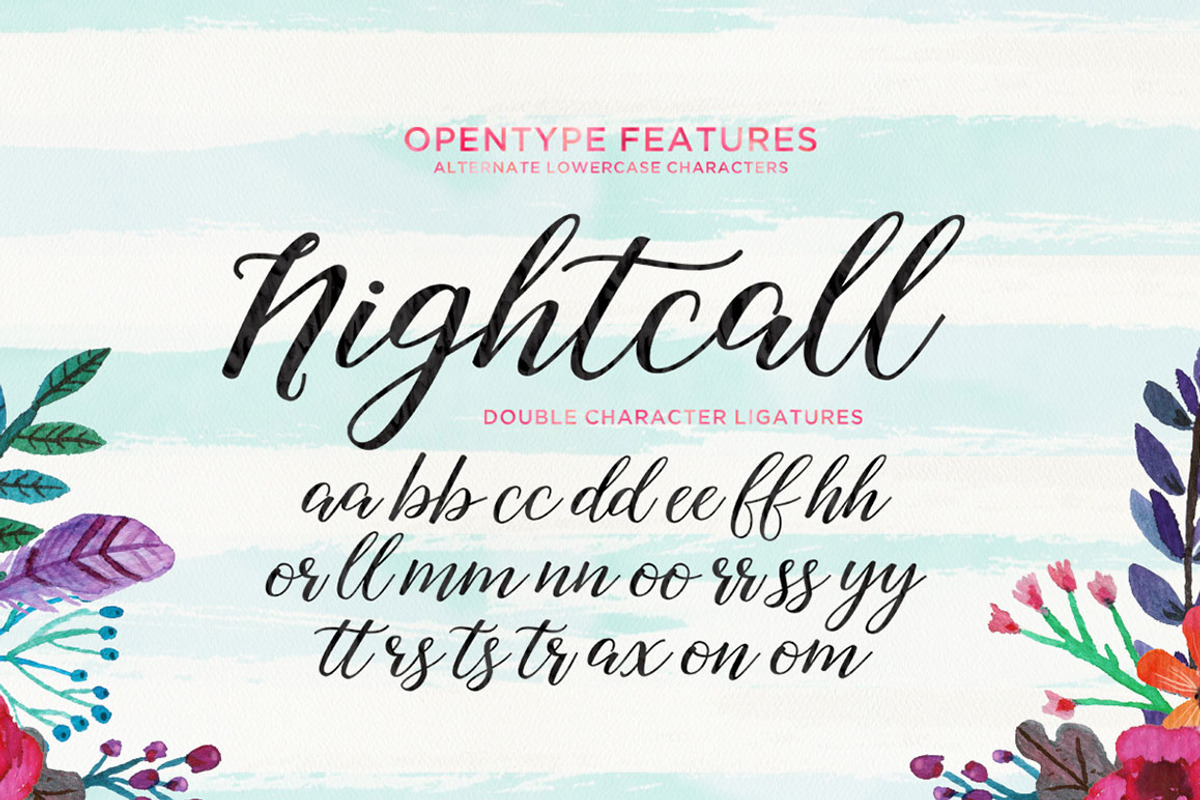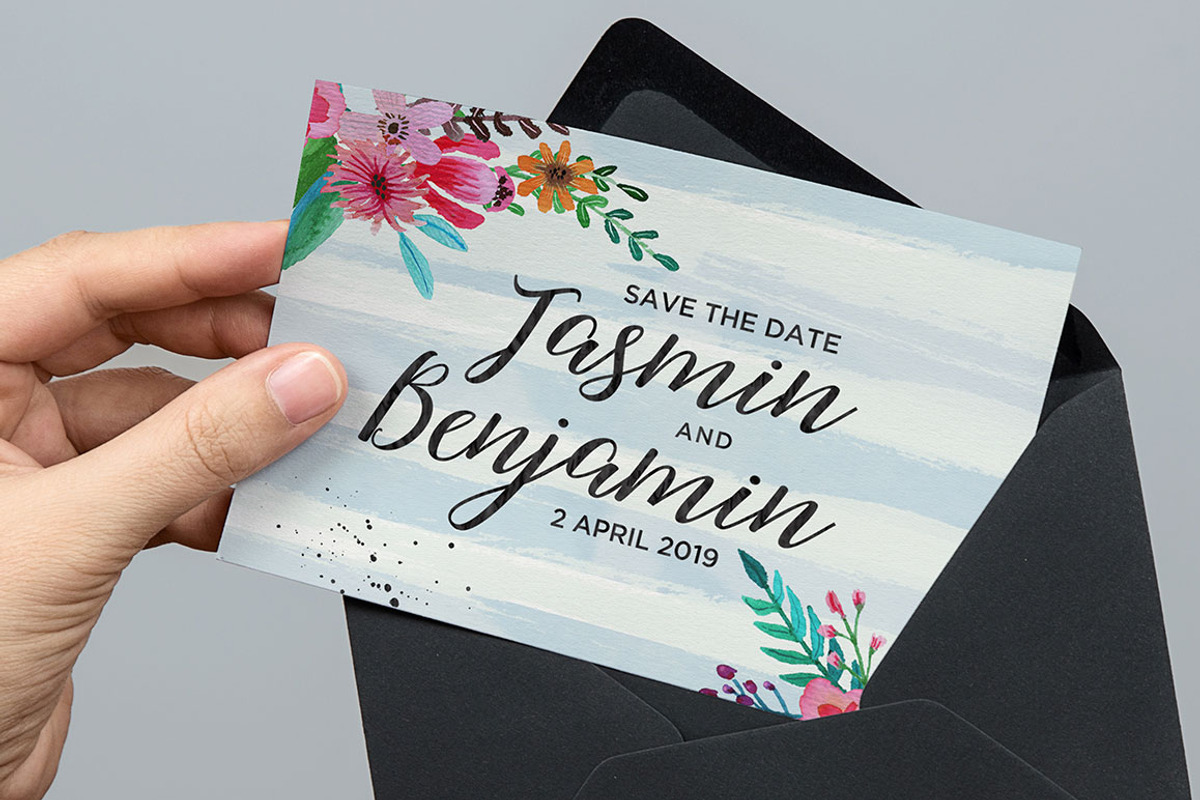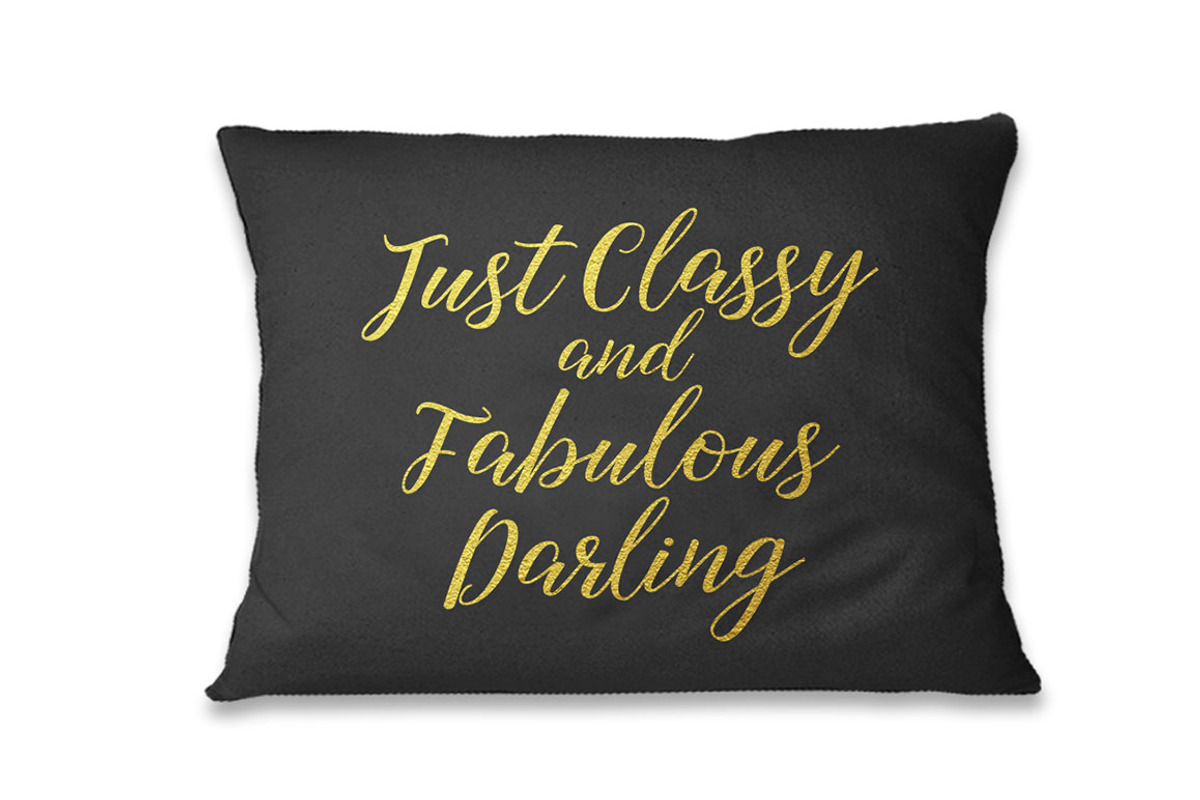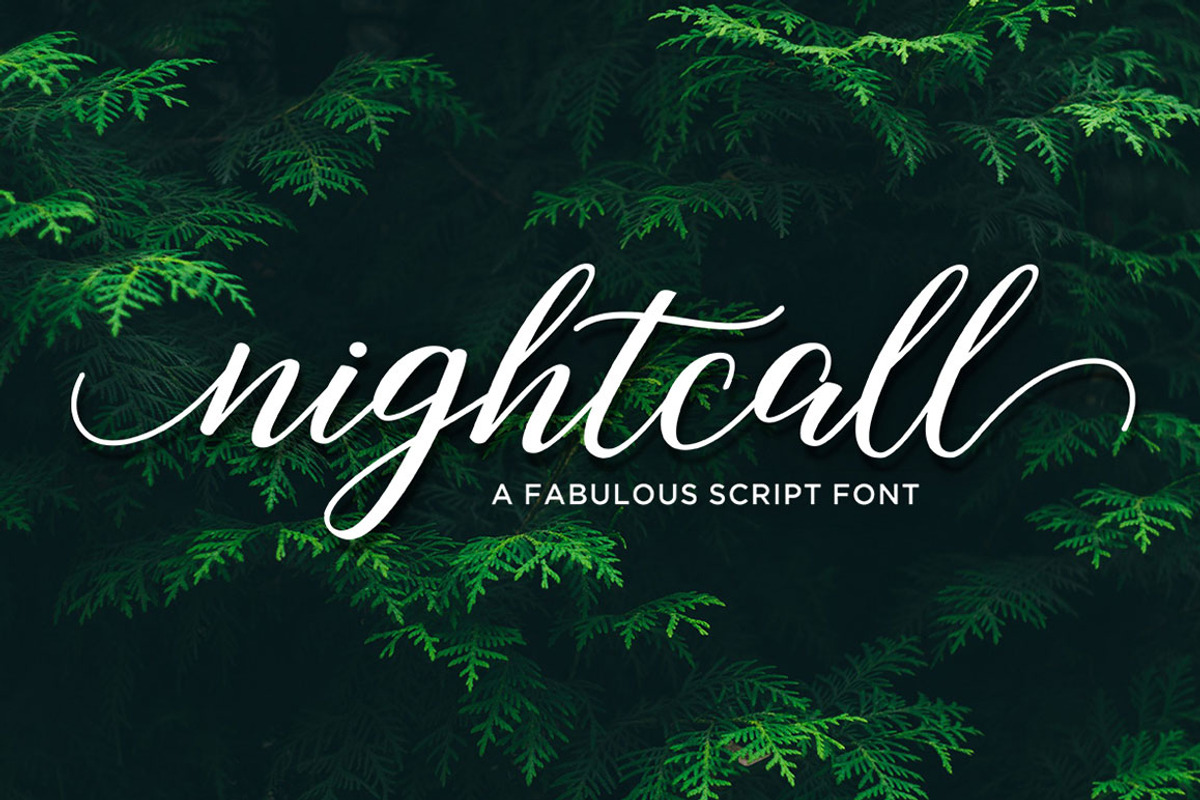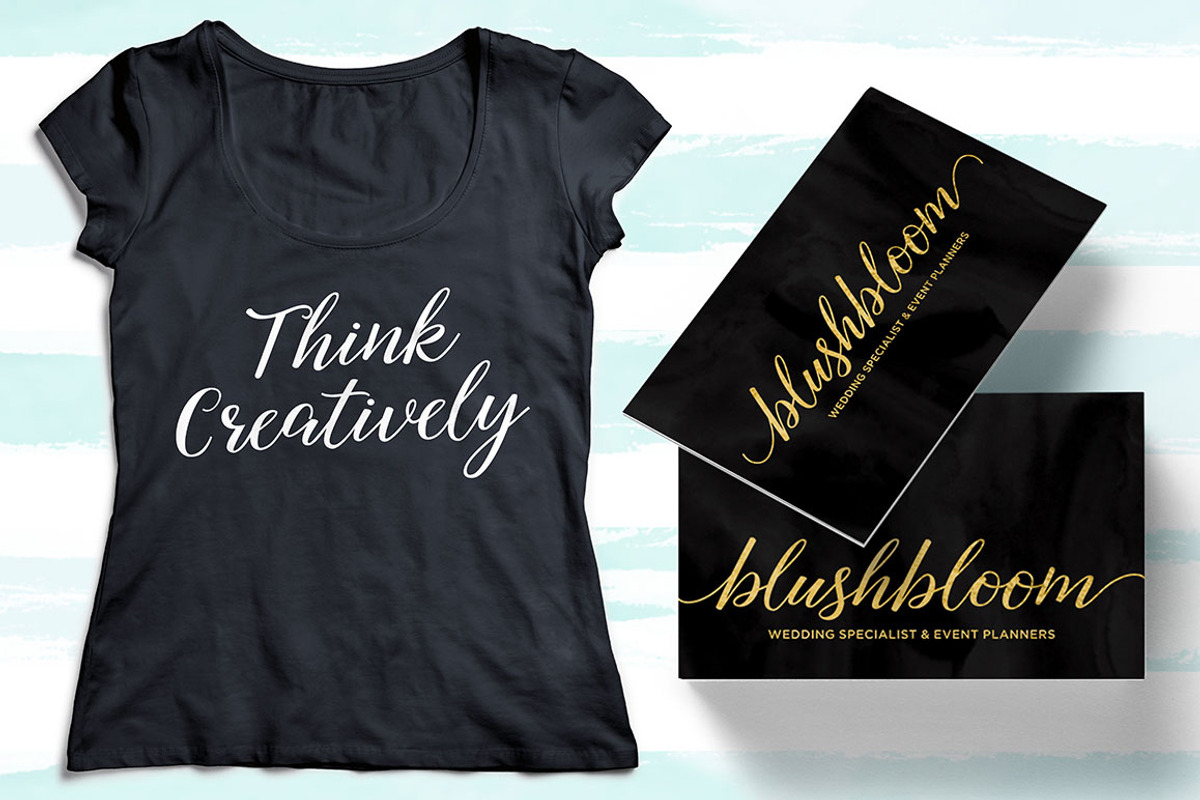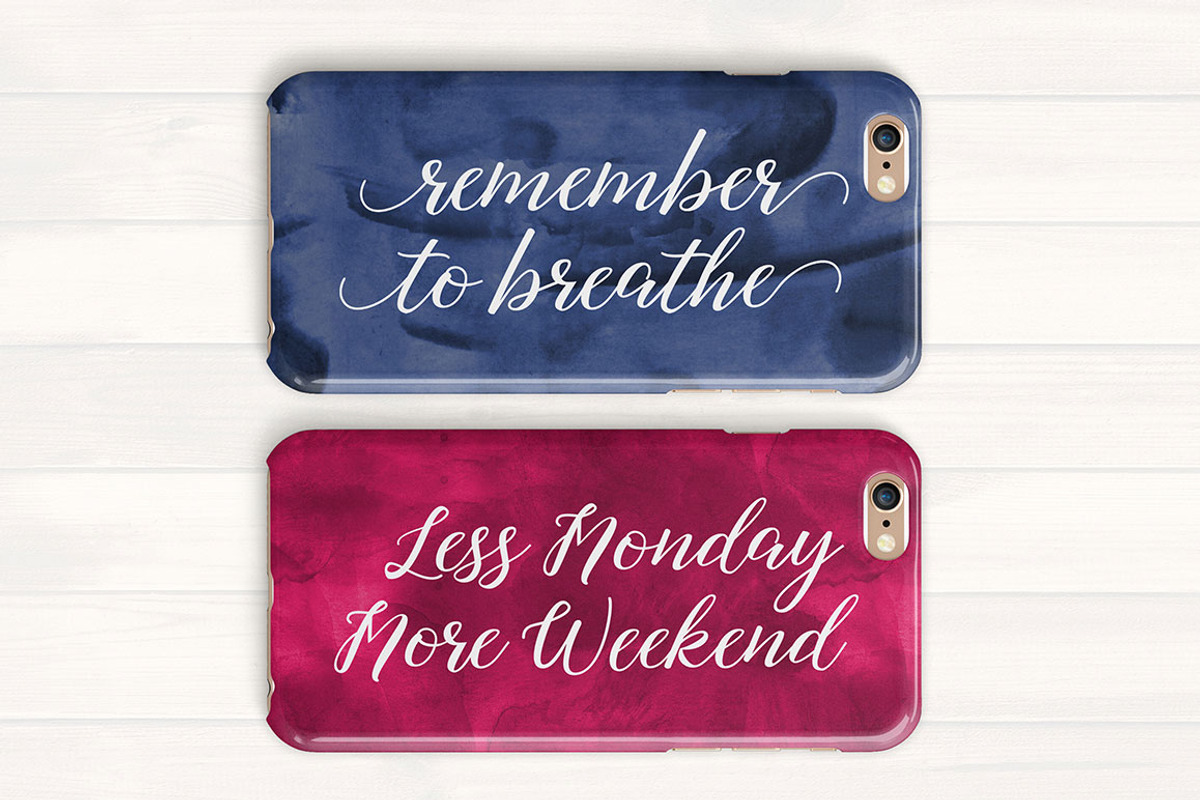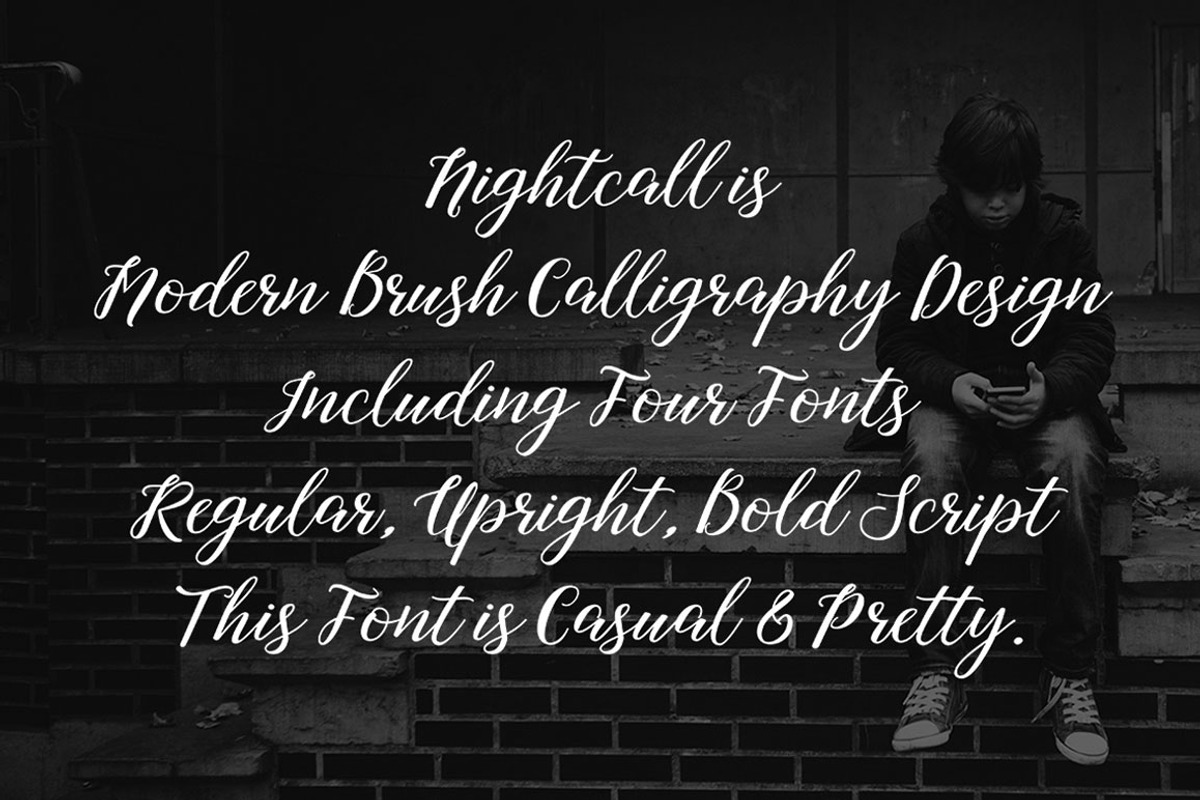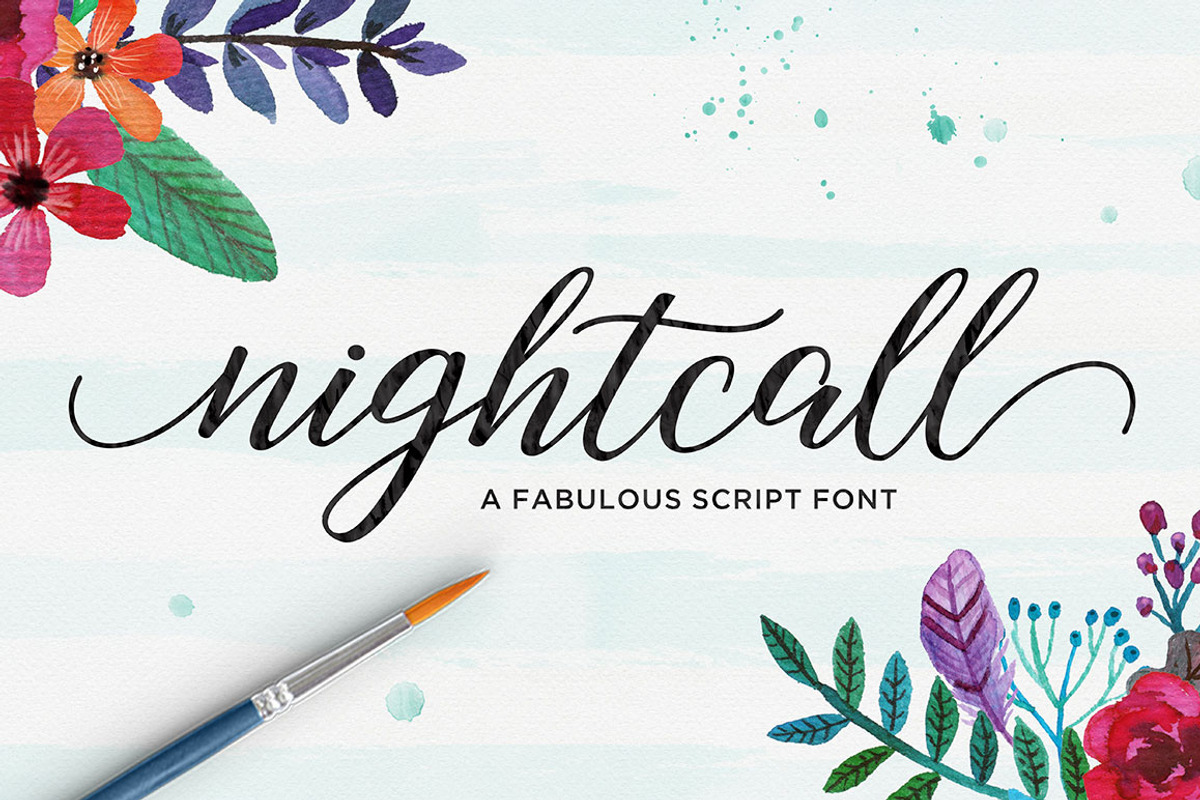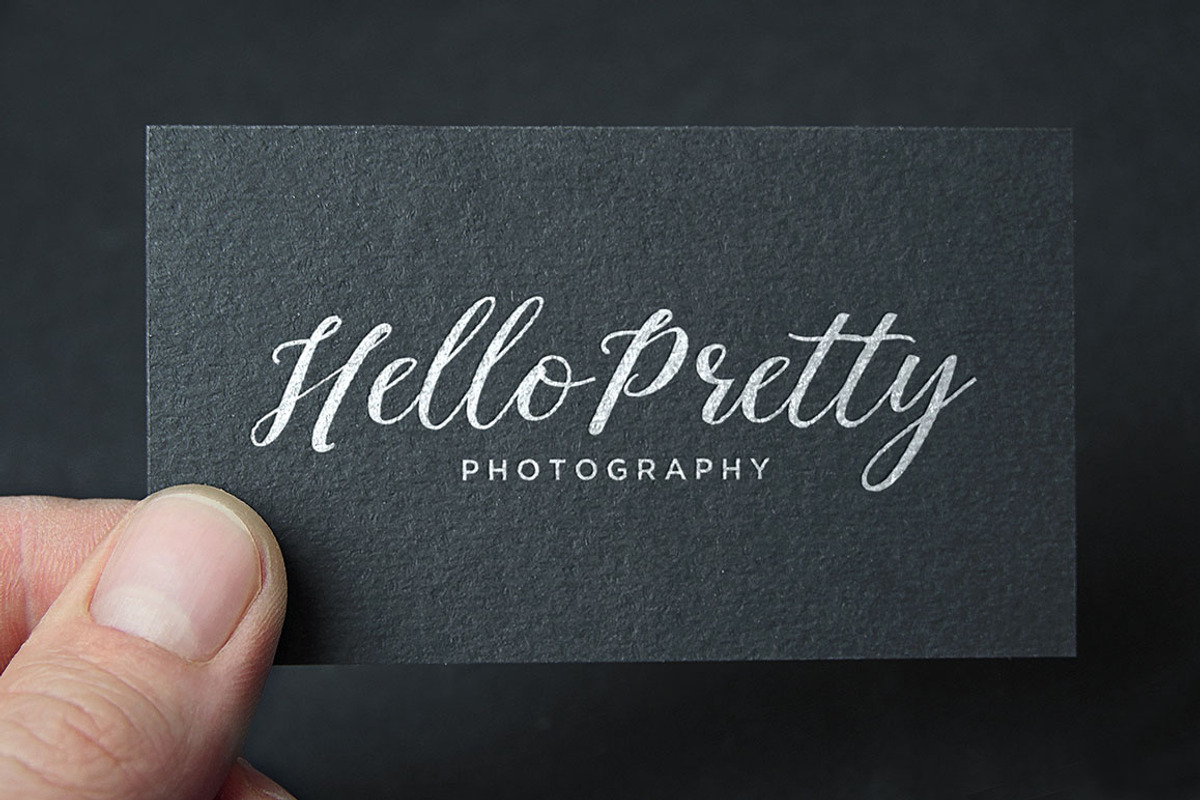
Nightcall Script
Introducing Nightcall Script!
Modern calligraphy design, including four fonts. Regular, Upright and Bold Script. This font is casual and pretty with swashes. Can used for various purposes. such as signature, logo, product packaging, wedding invitations, branding, headlines, signage, labels, book covers, posters, quotes and more.
Nightcall Script features OpenType stylistic alternates, ligatures and International support for most Western Languages is included. To enable the OpenType Stylistic alternates, you need a program that supports OpenType features such as Adobe Illustrator CS, Adobe Indesign & CorelDraw X6-X7, Microsoft Word 2010 or later versions.